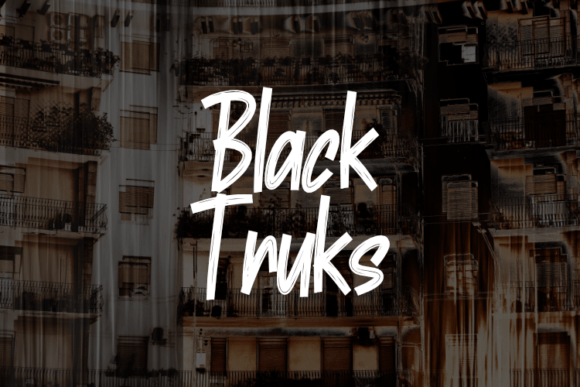
Discover the Rhythm of Black Truks Font
Remember that moment when a font suddenly sparks an idea, and your design takes off in a whole new direction? For many creatives, that’s exactly what happened when they stumbled upon the Black Truks Font. This stylish typography has been making waves in the design world, and it’s not hard to see why.
Black Truks Font is more than just a font – it’s a tool that lets designers inject their unique style into every project. Whether you’re crafting logos, illustrations, or graphics, this font seamlessly integrates with your design concepts. Its striking curves and edges bring energy to your designs, making them stand out in any context.
For designers, the Black Truks Font is a valuable asset that adds a touch of personality to their work. With its flexibility and versatility, it’s the perfect companion for any design project, no matter the aesthetic or software platform.
Key Features of Black Trucks Font
- Unique Characteristics: The Black Trucks Font features a unique, rugged, and distressed design, with rough edges and uneven letterforms, giving it a distinctive and edgy look.
- Legibility: Despite its distressed appearance, the font is designed to be highly legible, making it suitable for body text and long passages of text.
- Style Options: The font comes in multiple style options, including Regular, Bold, and Italic, allowing designers to create a range of visual effects and moods.
Designer Review: Black Truks Font
Overall, I found the Black Truks font to be a unique and bold addition to any design project. ✨ One of the things that stands out is its sleek, modern aesthetic. The font is perfect for creating a sophisticated and edgy feel, especially when used for titles and headings.
Here are some of the things that work well with the Black Truks font:
- Its modern and edgy feel makes it perfect for contemporary designs
- The font is highly legible, even at smaller font sizes
- It’s a great choice for creating a bold and striking visual identity
- ⚠️ The font may not be suitable for designs that require a more traditional or formal look
- ⚠️ Some users may find the font to be too bold or overwhelming, especially when used in large quantities
Overall, I think the Black Truks font is a great choice for designers who want to add some edge to their projects. With its sleek and modern aesthetic, it’s perfect for creating a bold and striking visual identity. However, it may not be the best choice for designs that require a more traditional or formal look.
Black Trucks Font: A Practical Application Guide
Use the Black Trucks Font in bold or italic styles to add emphasis to your text. Combine it with other fonts to create a unique typography. Experiment with different font sizes and line heights to achieve the best results.
The Black Trucks Font is ideal for use in logos, branding materials, and promotional materials. It is also suitable for use in industrial or mechanical designs, as well as in designs that require a rugged or urban feel.
Q: What is the character set and language support for Black Trucks Font?
The Black Trucks Font family supports a wide range of languages, including Latin, Cyrillic, and Greek scripts. The font includes over 1,000 glyphs, covering various language characters, symbols, and punctuation marks. The font also supports Unicode characters up to U+10FFFF.